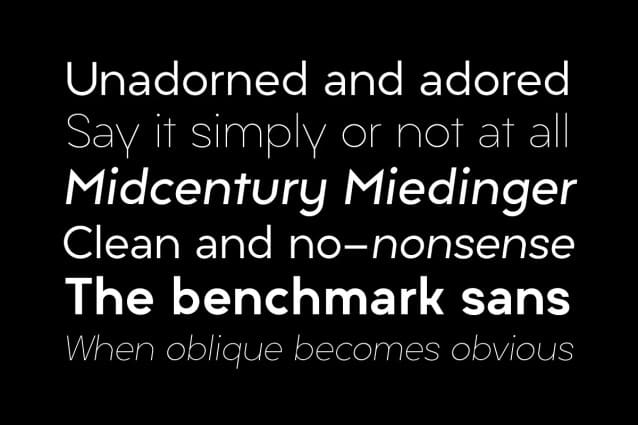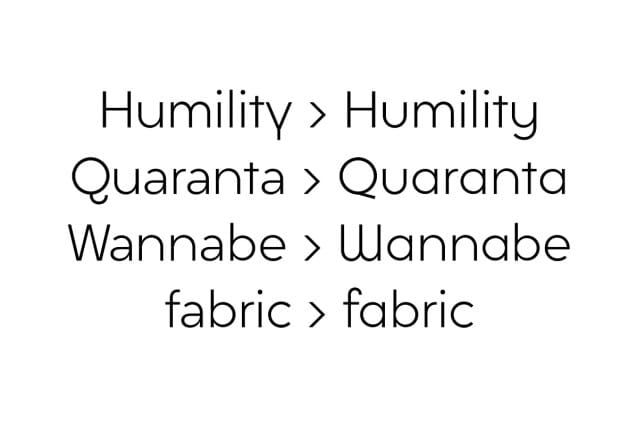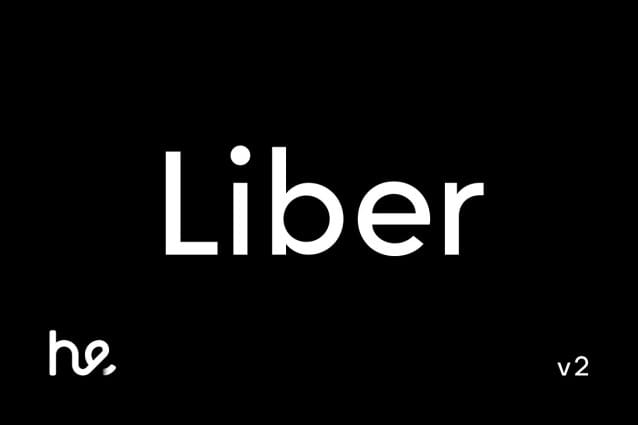
Liber v2 Font
Liber V2 Font – Valerio Dell’Edera designed Liber Grotesque™ in 2016. He felt an obligation to create a linear sans in the tradition of Avenir and Futura, but to also make use of the experience and stylistic developments of the 21st century. The latin word Liber means ‘book’ or ‘Absolute and hints that the typeface is built on the mathematical purity of geometric circles and clarity of squares, takes its roots from tradition of text fonts, but its completely redesigned for modern use and responsive for users. Liber Grotesque has some nuances aid in legibility and give it a harmonious appearance for both texts and headlines. Perfect for branding, editorial and signage, works great for bigger applications.